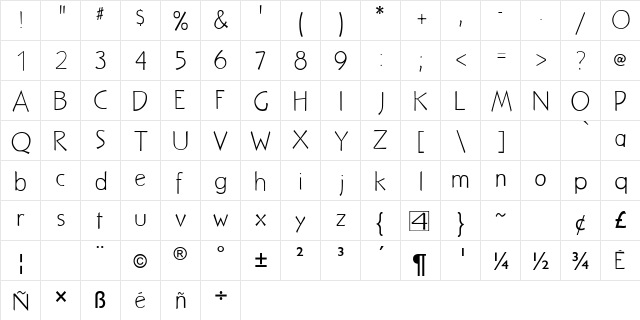
NuevoLitho Light
Design Context for NuevoLitho Typeface
NuevoLitho takes a measured approach to typography — its balanced proportions and neutral character make it a reliable workhorse for both digital and print work. Its slender proportions lend an understated elegance to any composition.